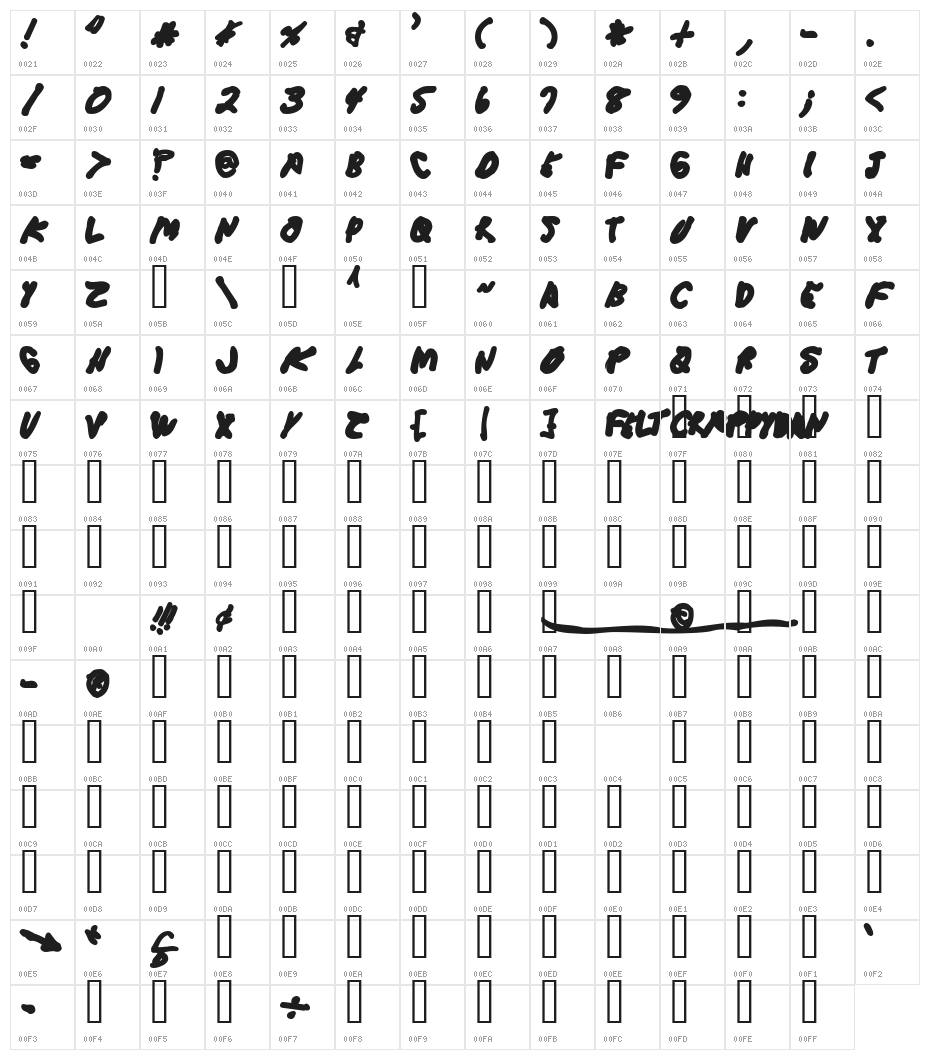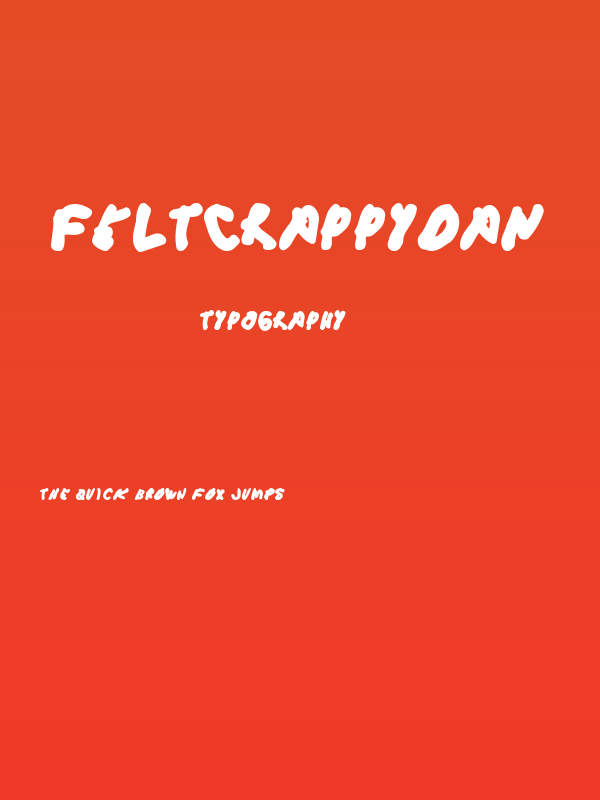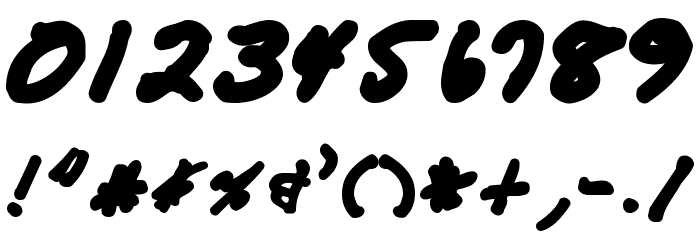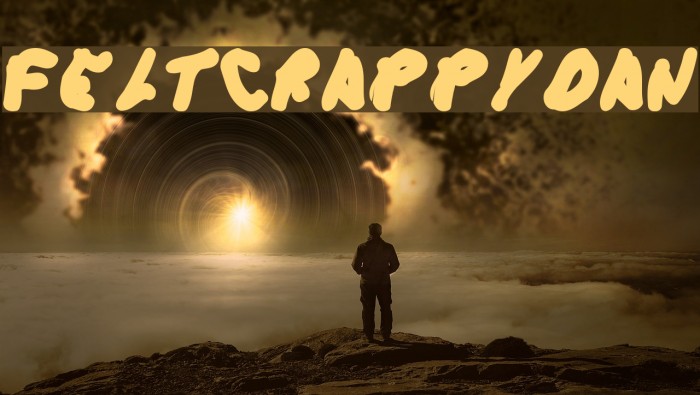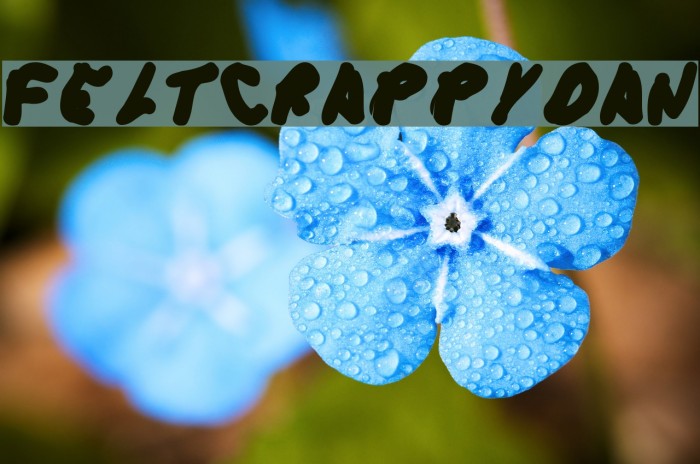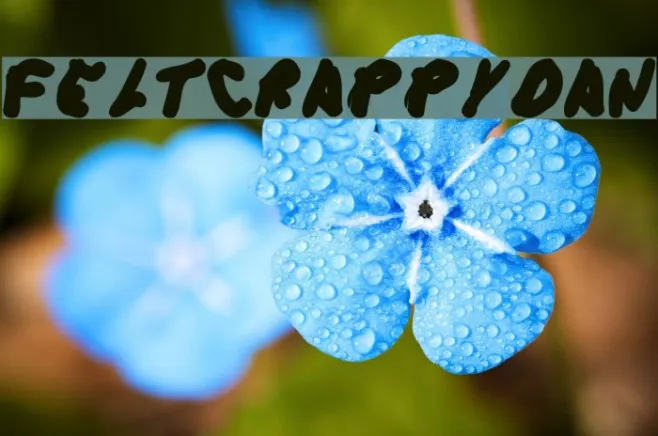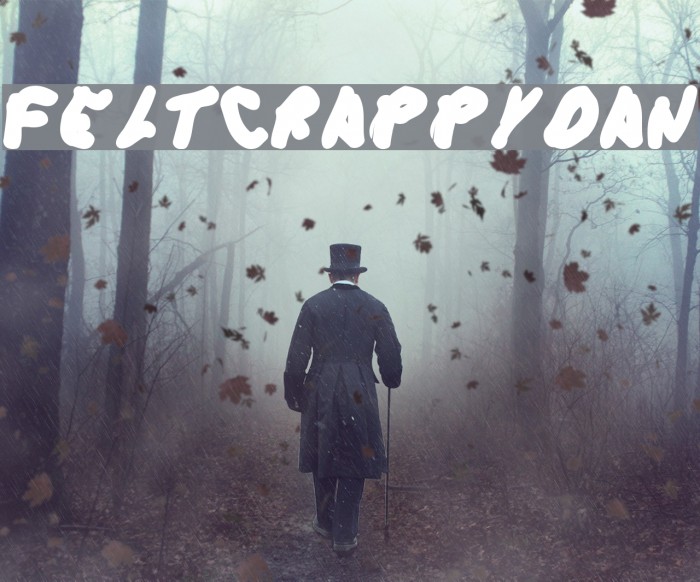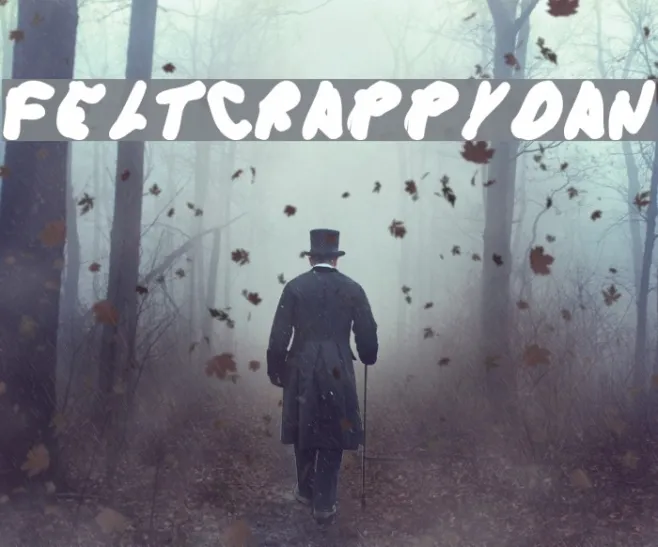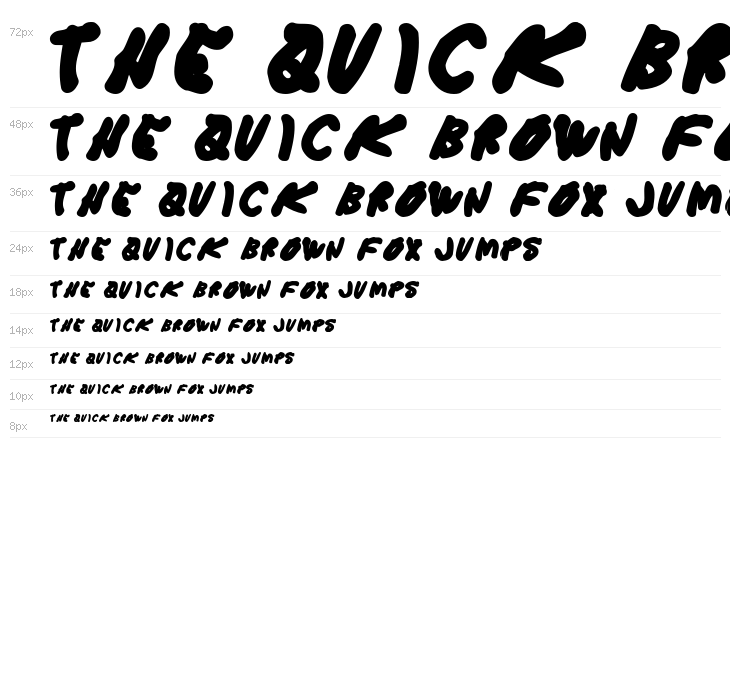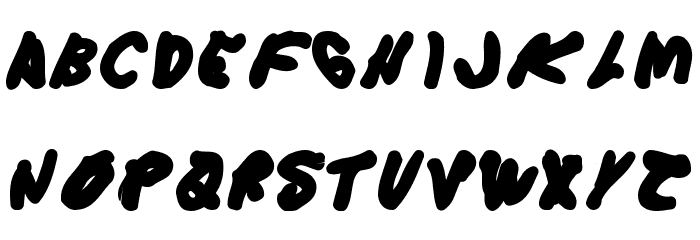
FeltCrappyDan Font
FeltCrappyDan Description
This font features a bold, playful style with thick, rounded strokes that give it a lively and energetic appearance. The characters are slightly irregular, adding a hand-drawn, organic feel. The uppercase and lowercase letters maintain a consistent weight, contributing to its bold presence. The numbers and special characters follow the same design principles, ensuring uniformity across the font. Its unique style makes it stand out, perfect for projects that require a touch of creativity and fun.
| Overall Style | Playful, Energetic |
| Proposed Projects | Ideal for children's books, playful branding, posters, and creative projects. |